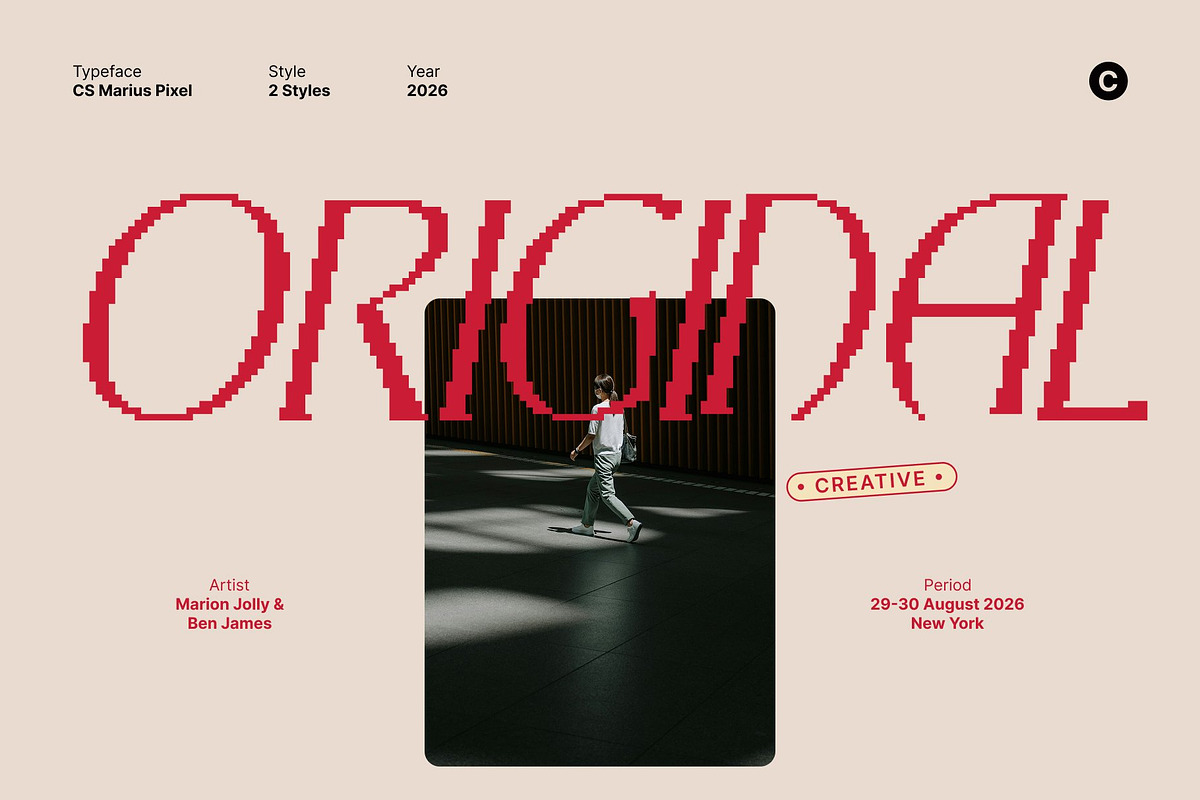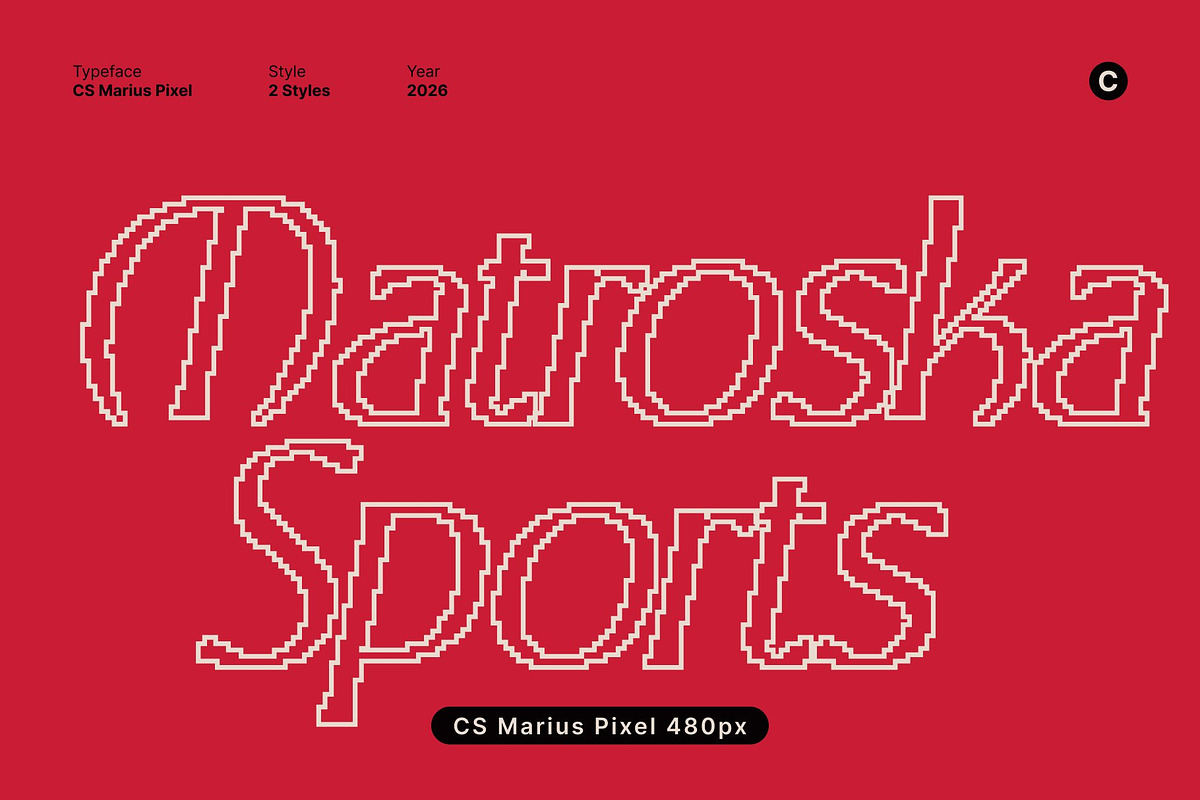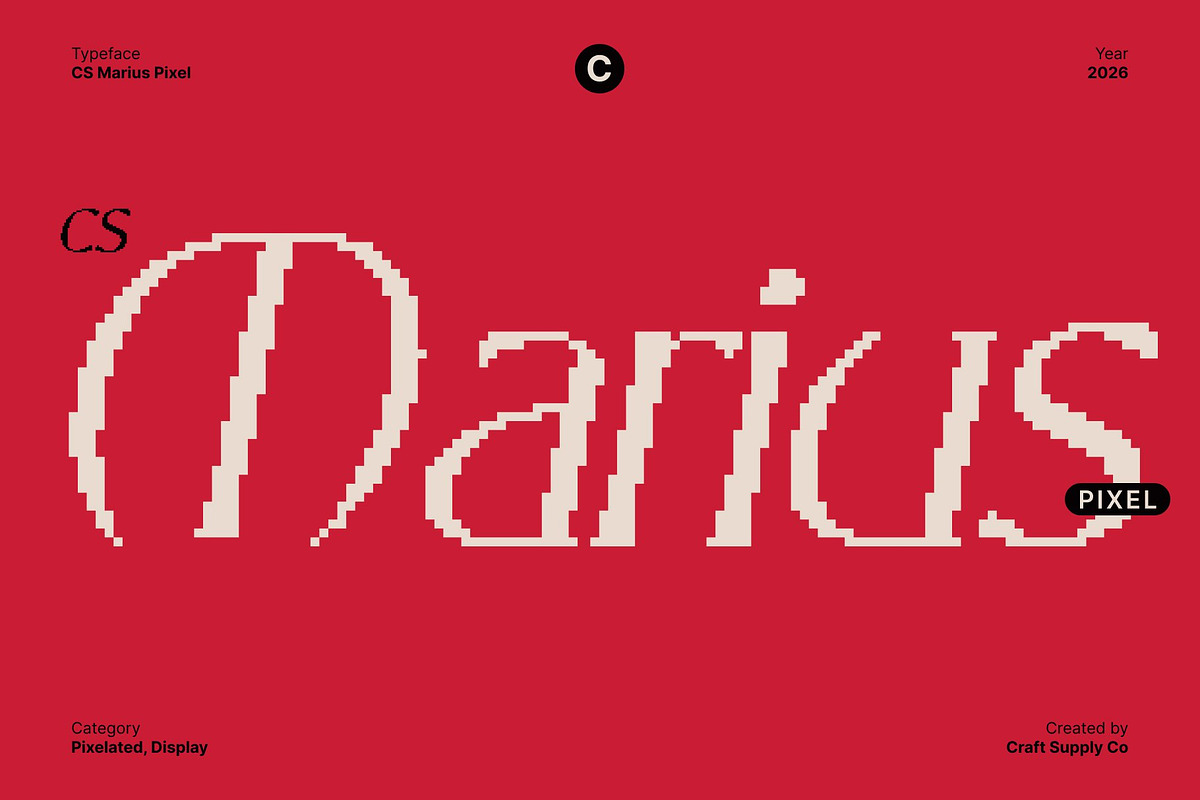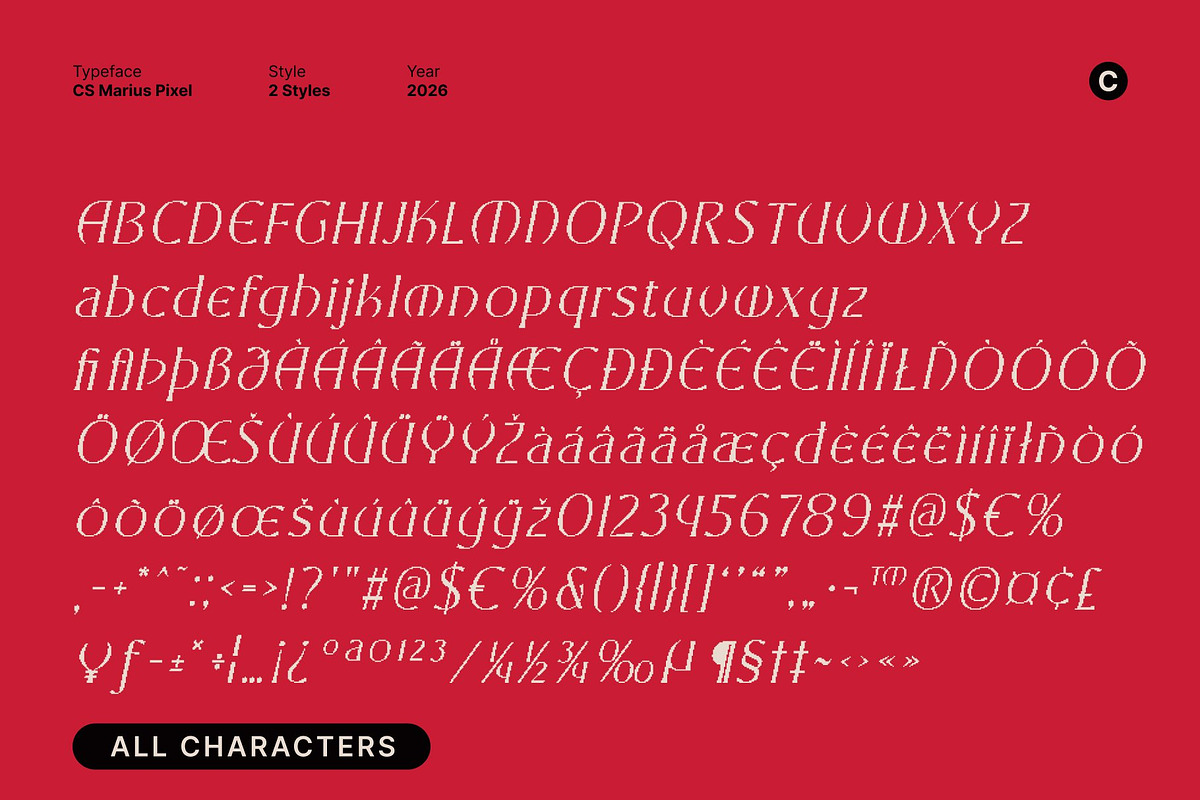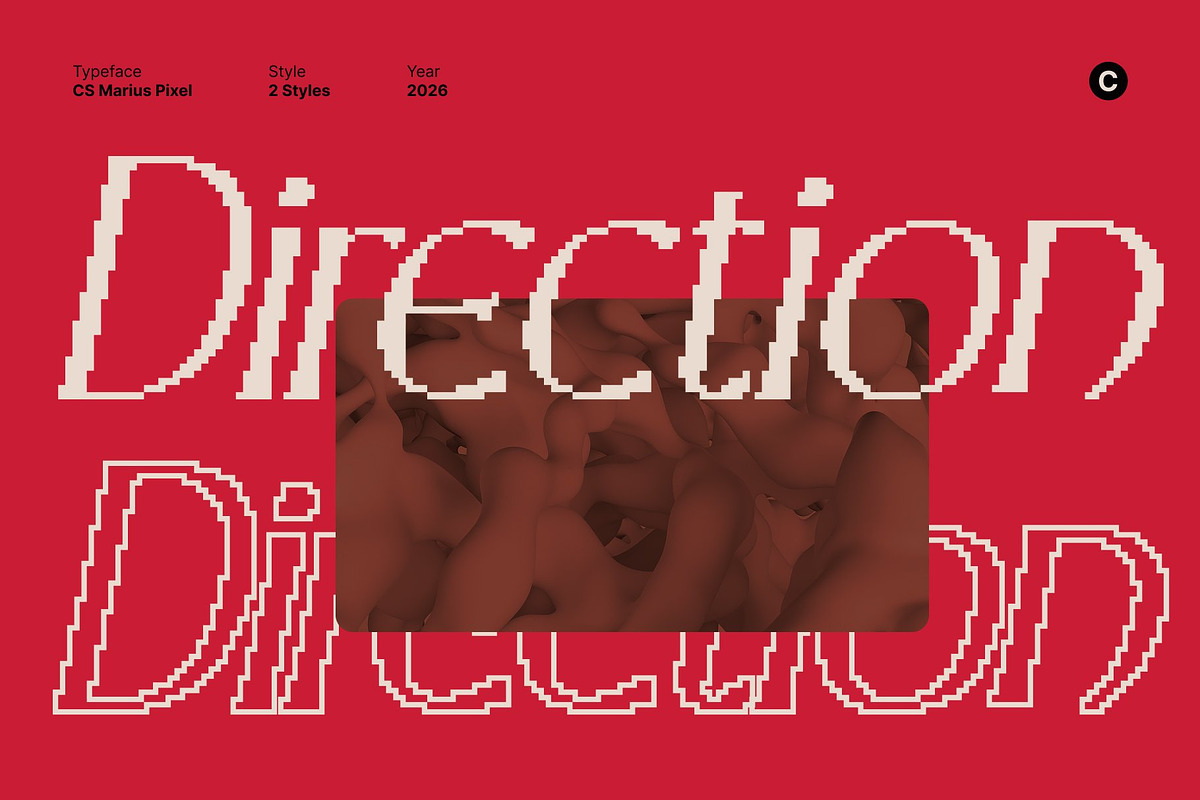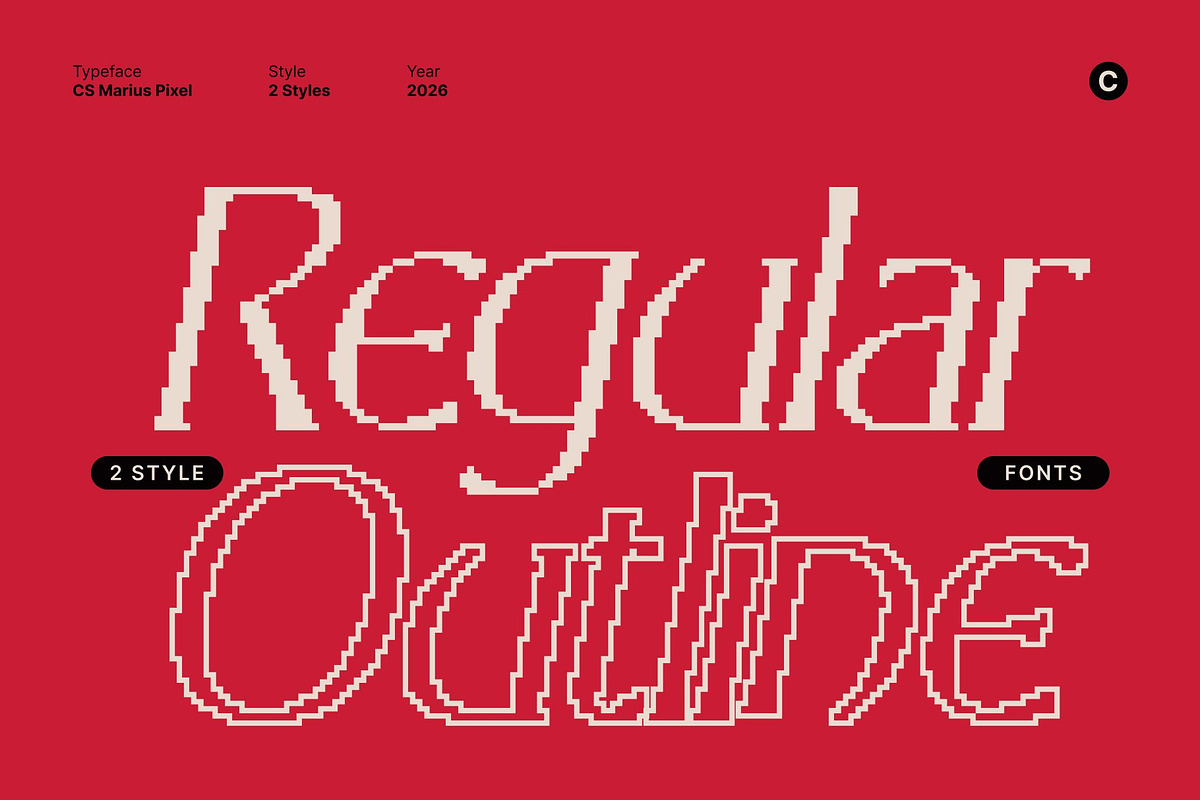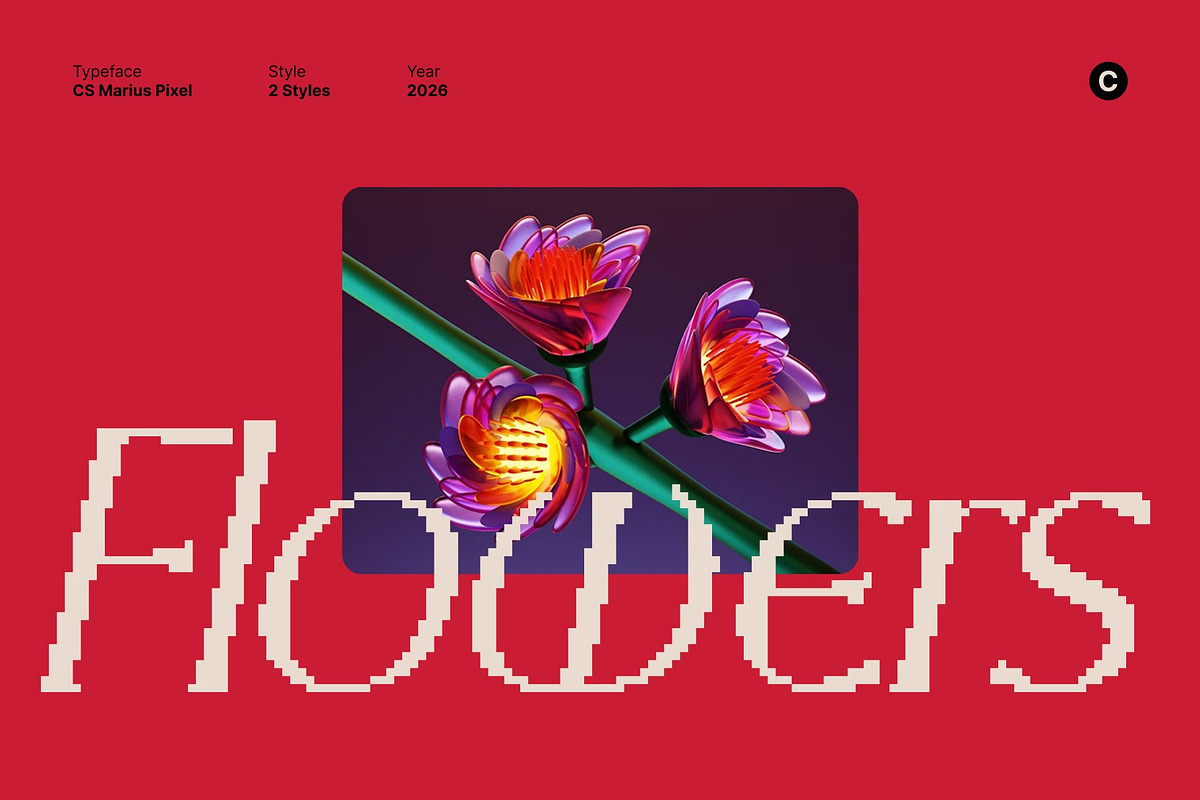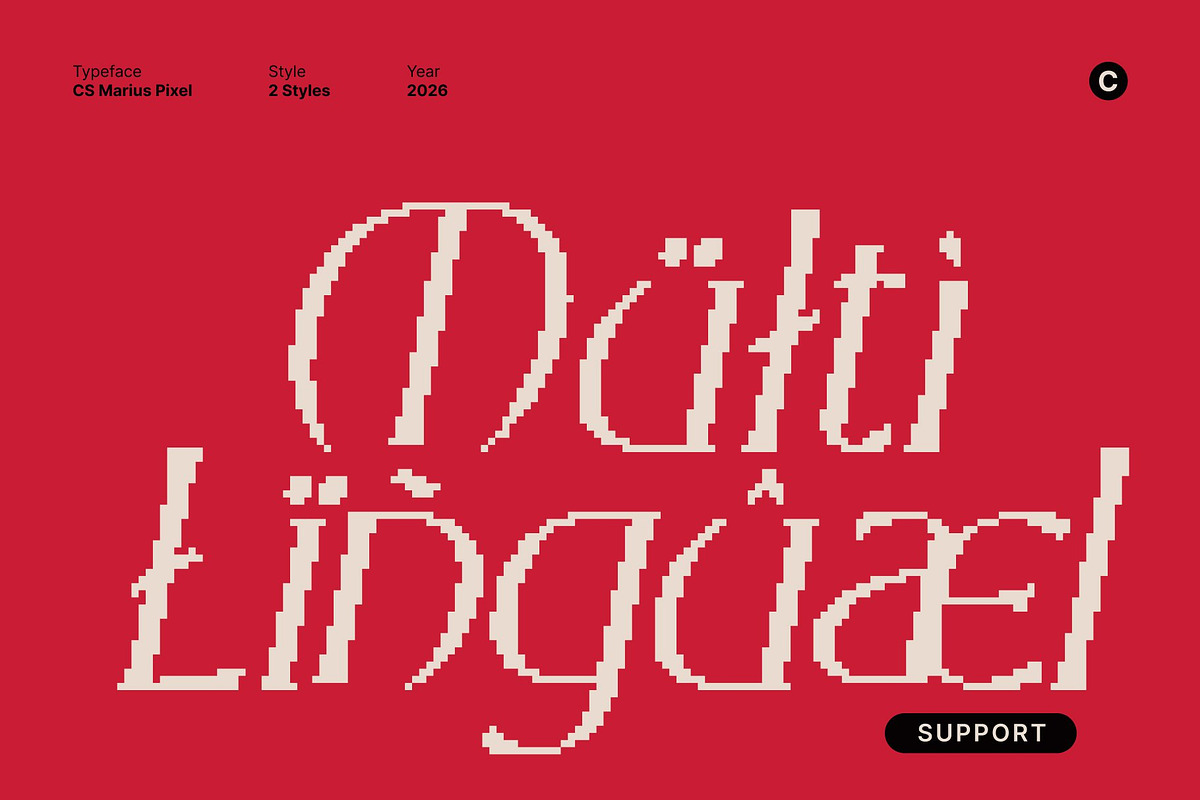
CS Marius Pixel
CS Marius Pixel – Classical Serif with Timeless Digital Elegance
Majestic Classical Design Meets Pixel Precision This is a display serif font that combines the grandeur of Greek-inspired letterforms with subtle pixel detailing. Its bold, commanding shapes preserve classical sophistication while the pixel structure adds a contemporary digital twist, making it ideal for modern displays, screens, and branding that demand elegance with a tech-friendly edge.
Architectural Serifs with Digital Harmony The font’s well-proportioned, bold serifs evoke the strength and stability of ancient Greek architecture. Pixel refinement enhances clarity and rhythm across every character, merging traditional beauty with a modern, eye-catching visual presence. Each letter balances heritage, structure, and precision.
Perfect for Luxury, Editorial, and Digital Projects This is ideal for high-end branding, editorial headlines, packaging, logos, and sophisticated digital identities. Its fusion of classical elegance and pixelated modernity ensures designs feel prestigious, stylish, and relevant in both print and digital contexts.
Timeless Impact with Modern Readability Whether used in large display headlines, premium branding, or editorial layouts, this font maintains clarity and authority. Its precise proportions, combined with subtle pixel accents, deliver a refined, distinctive look that bridges classical inspiration and contemporary digital style.